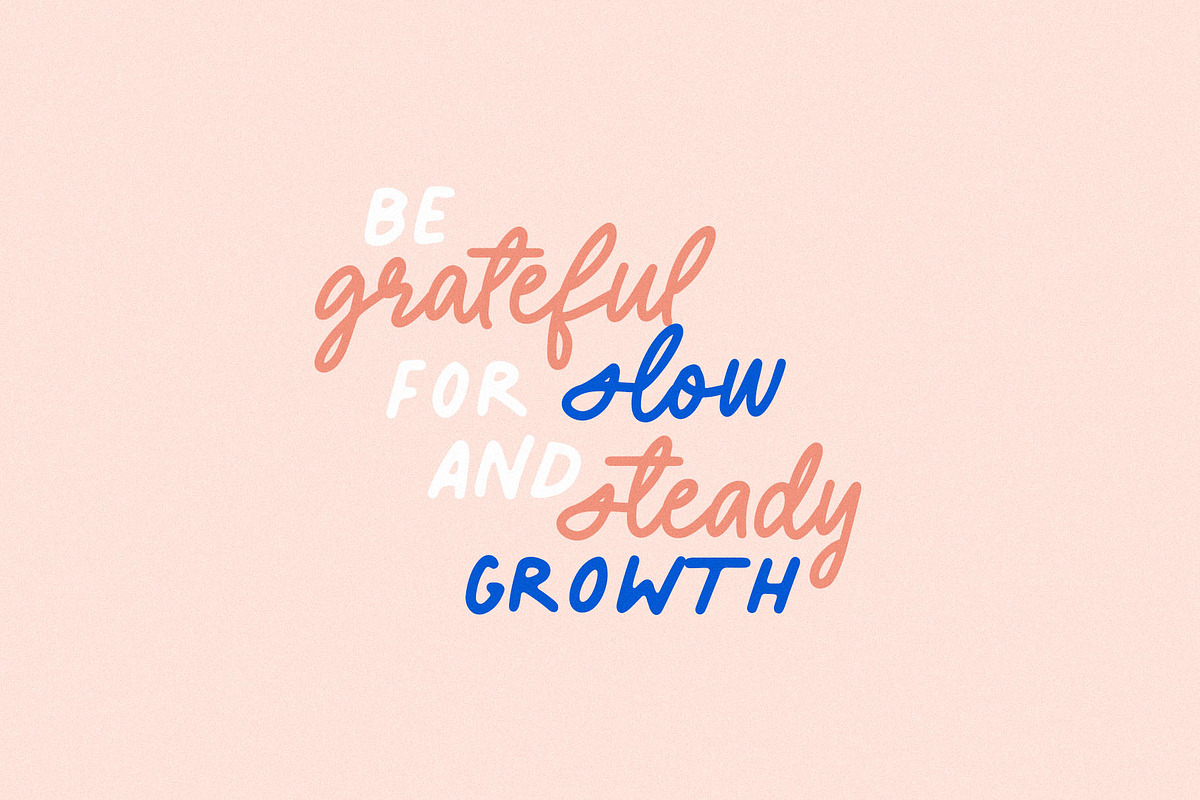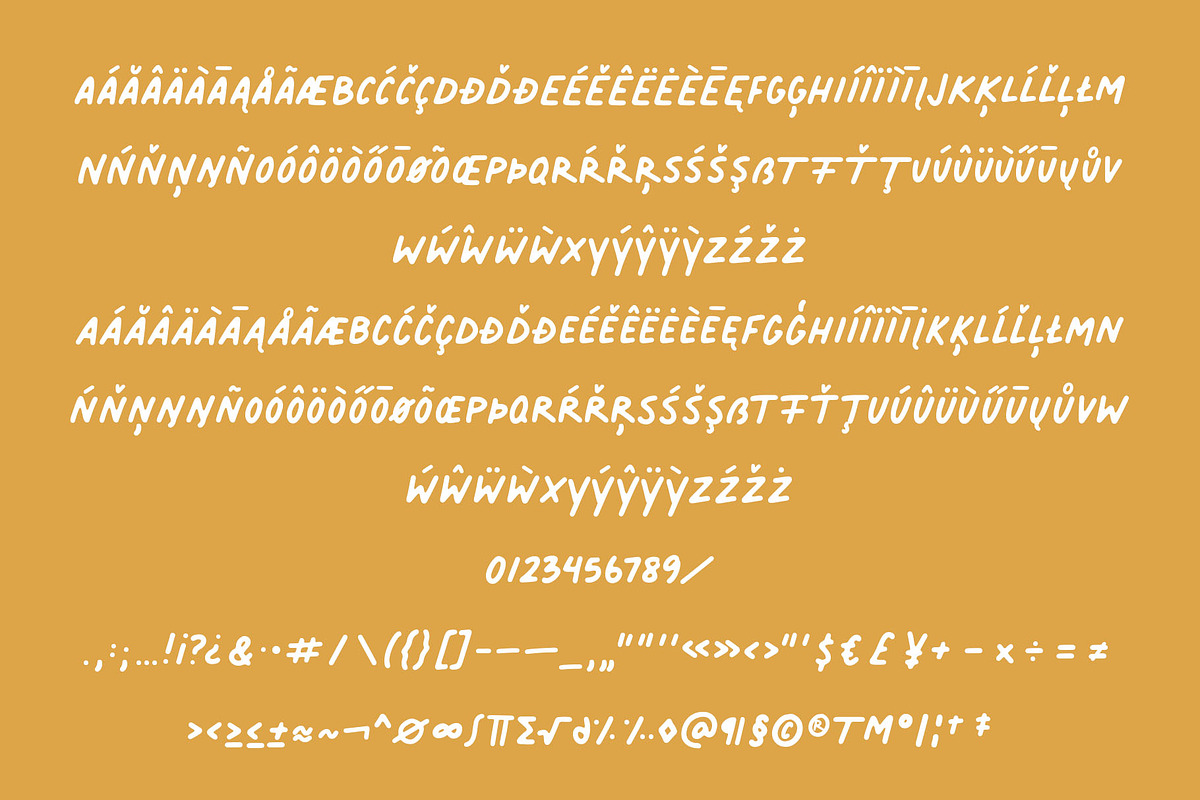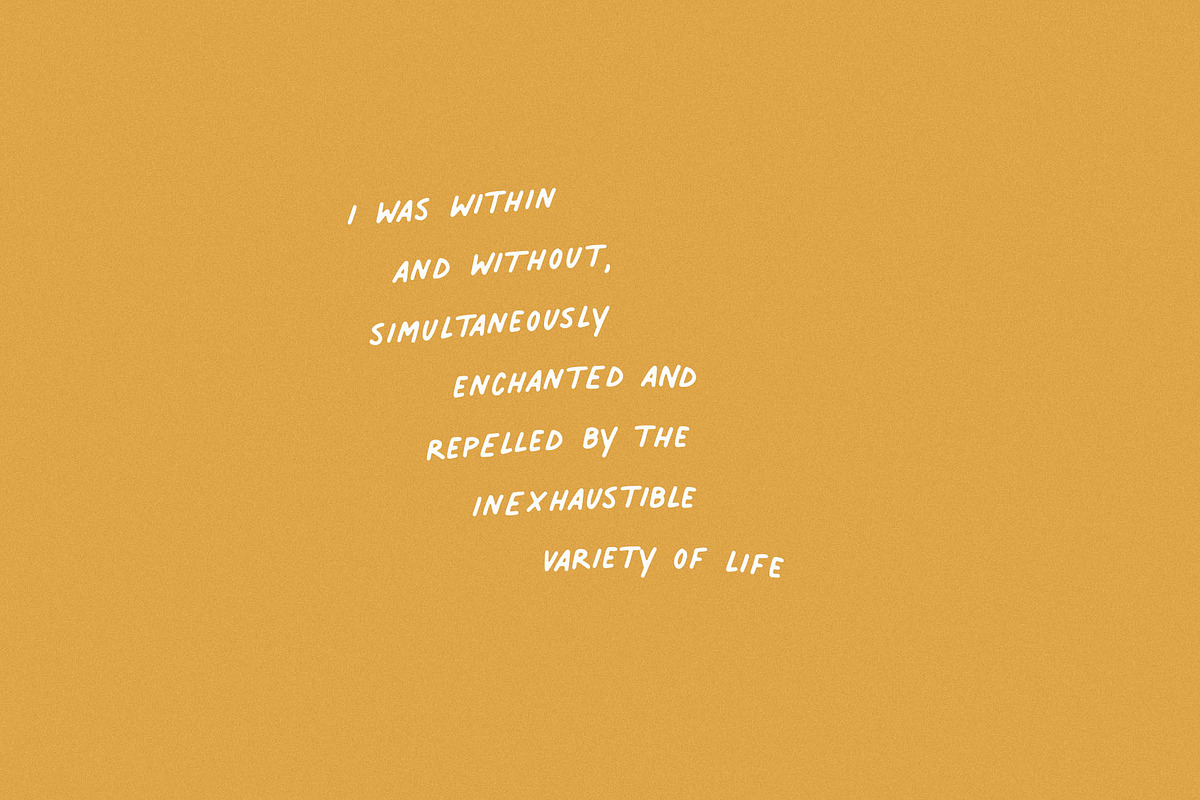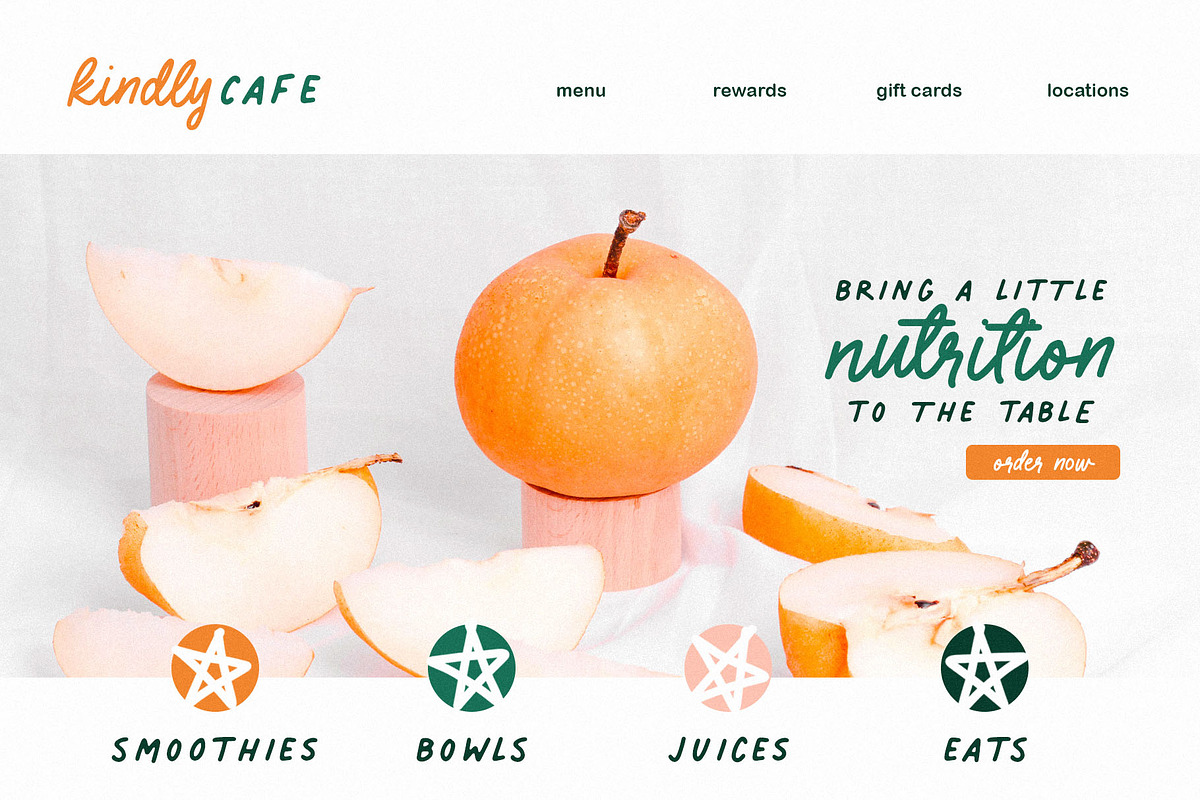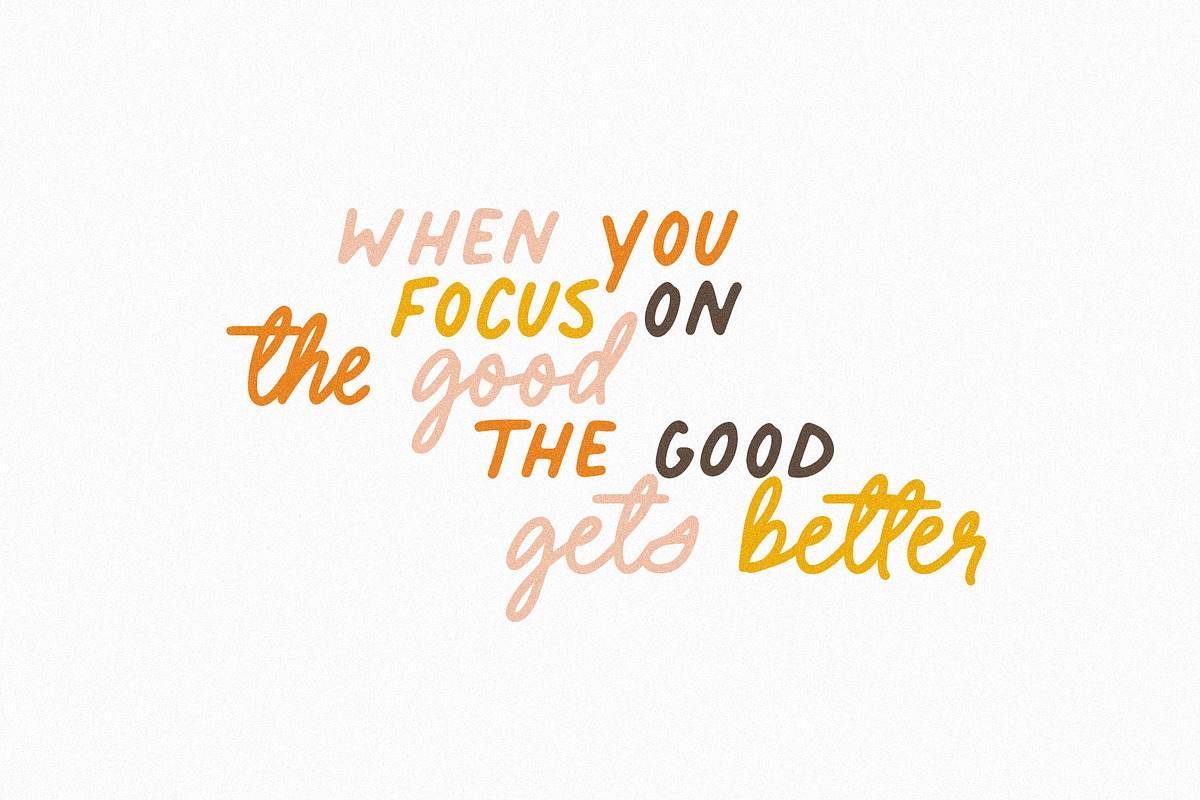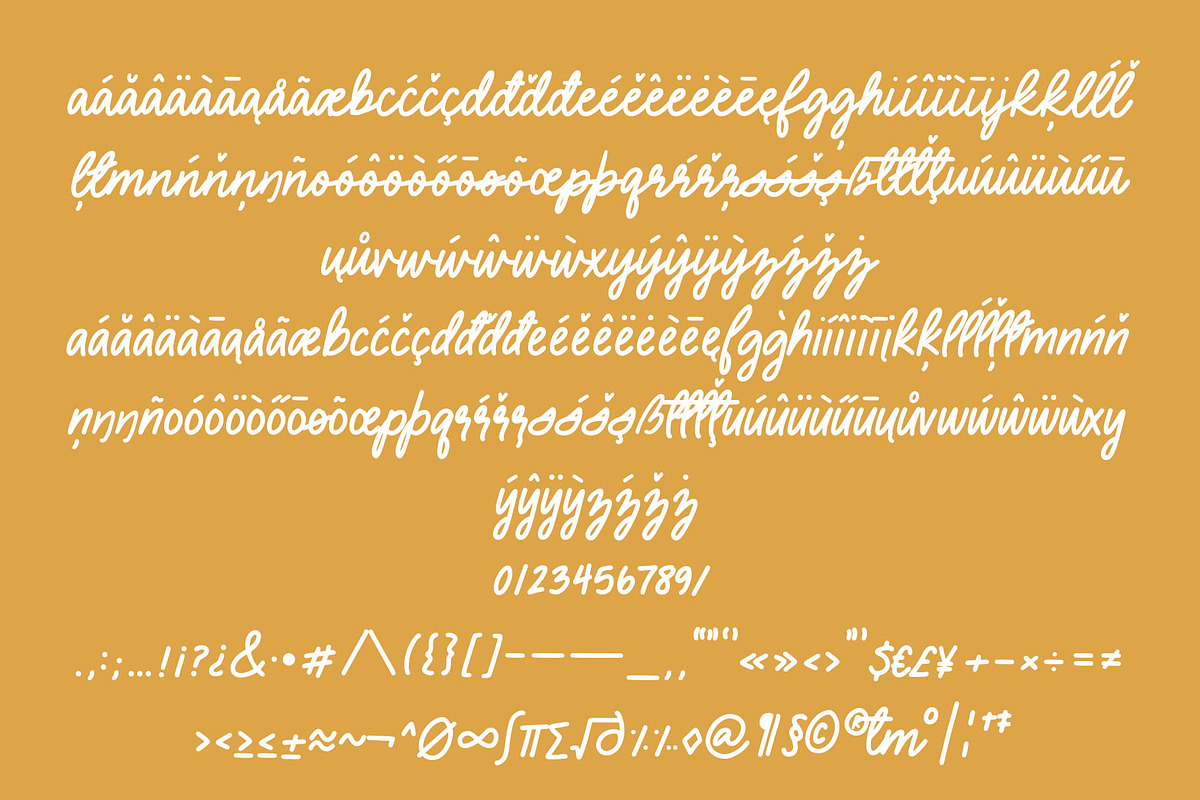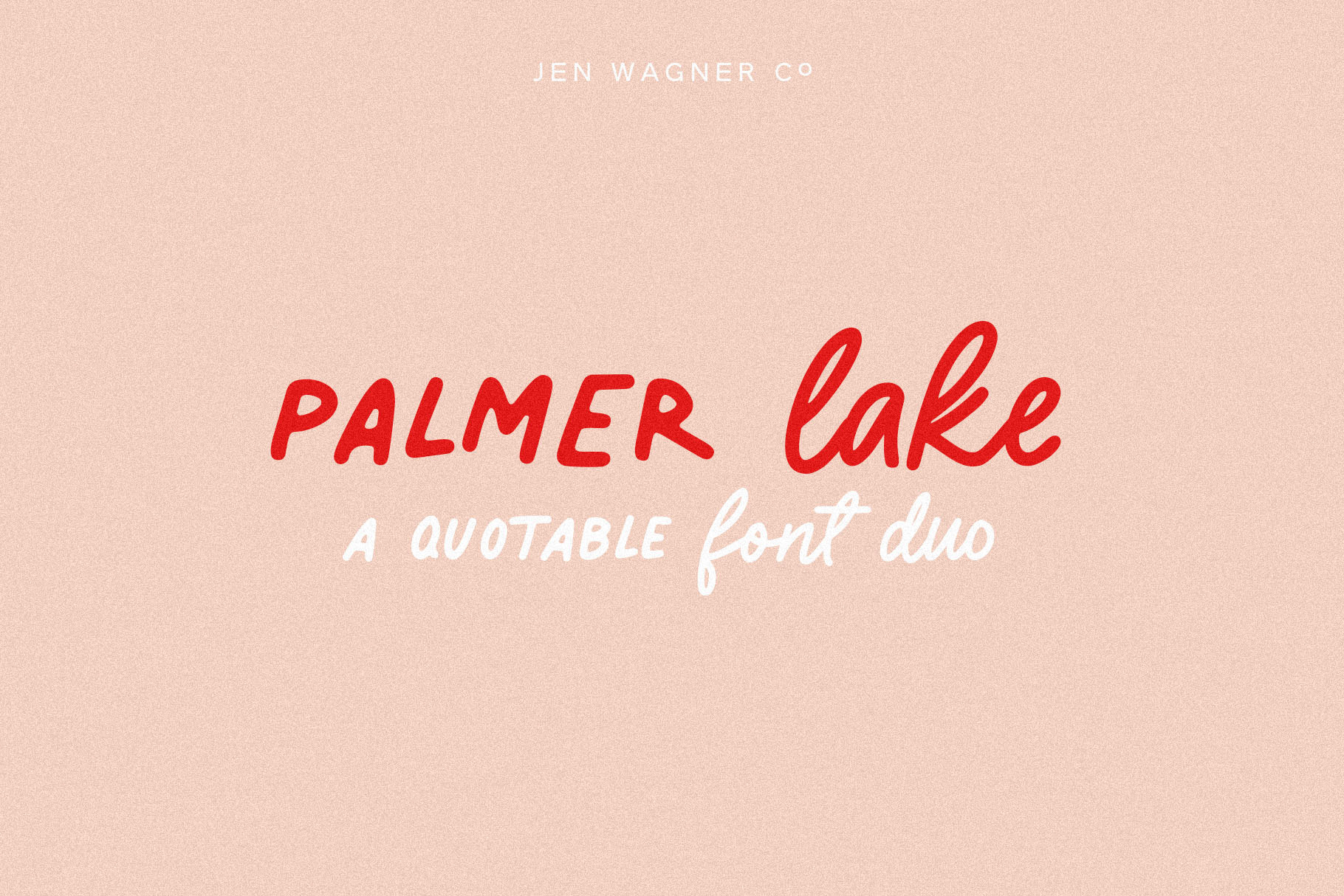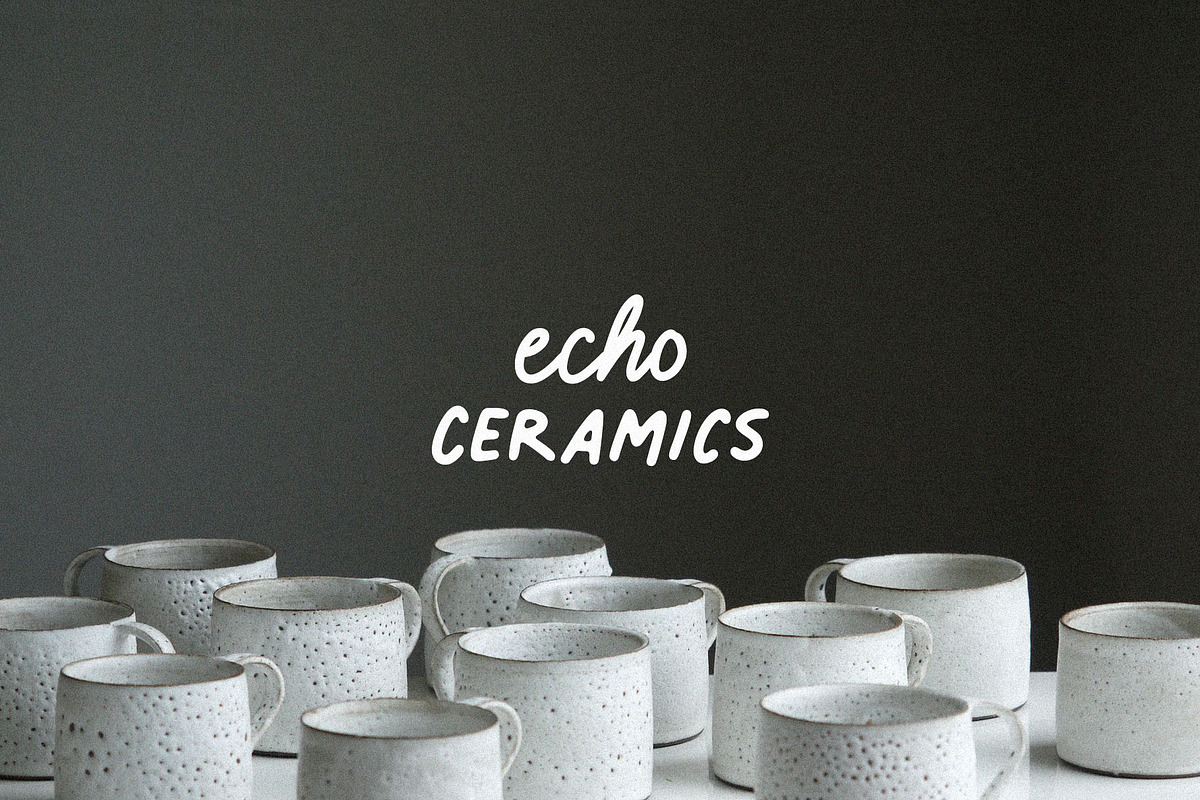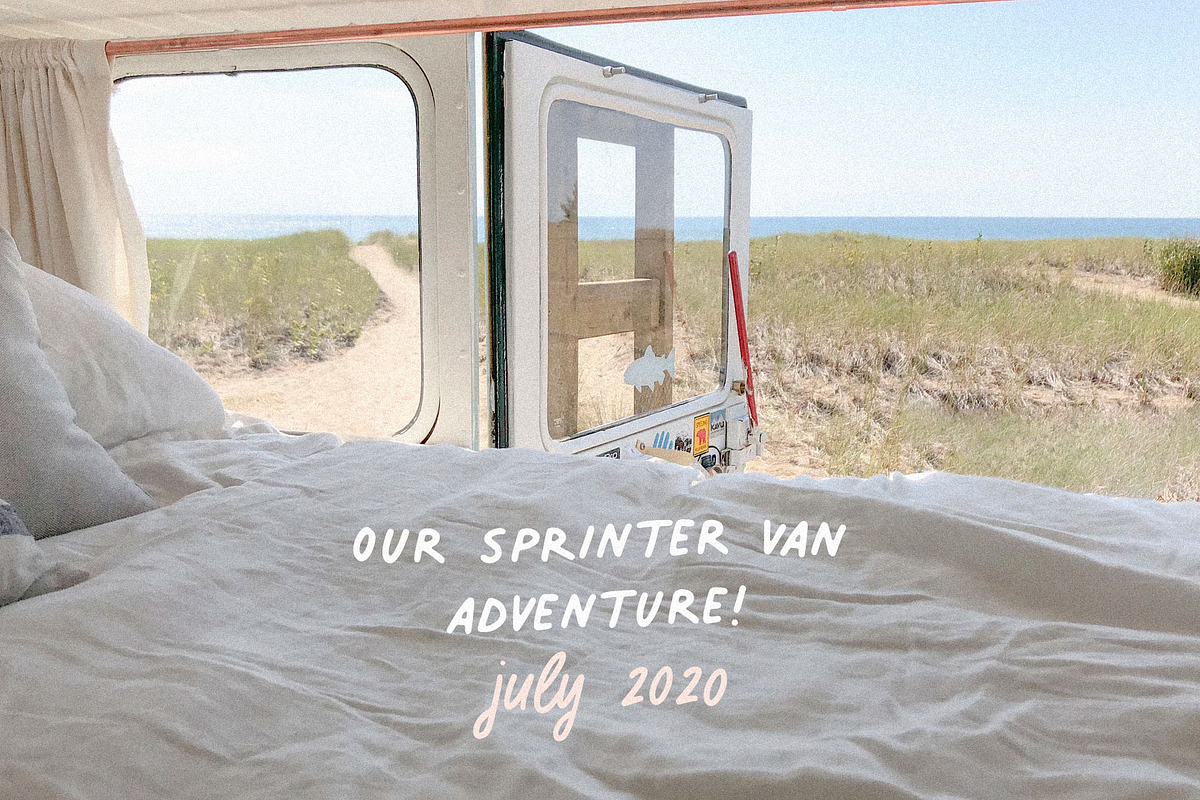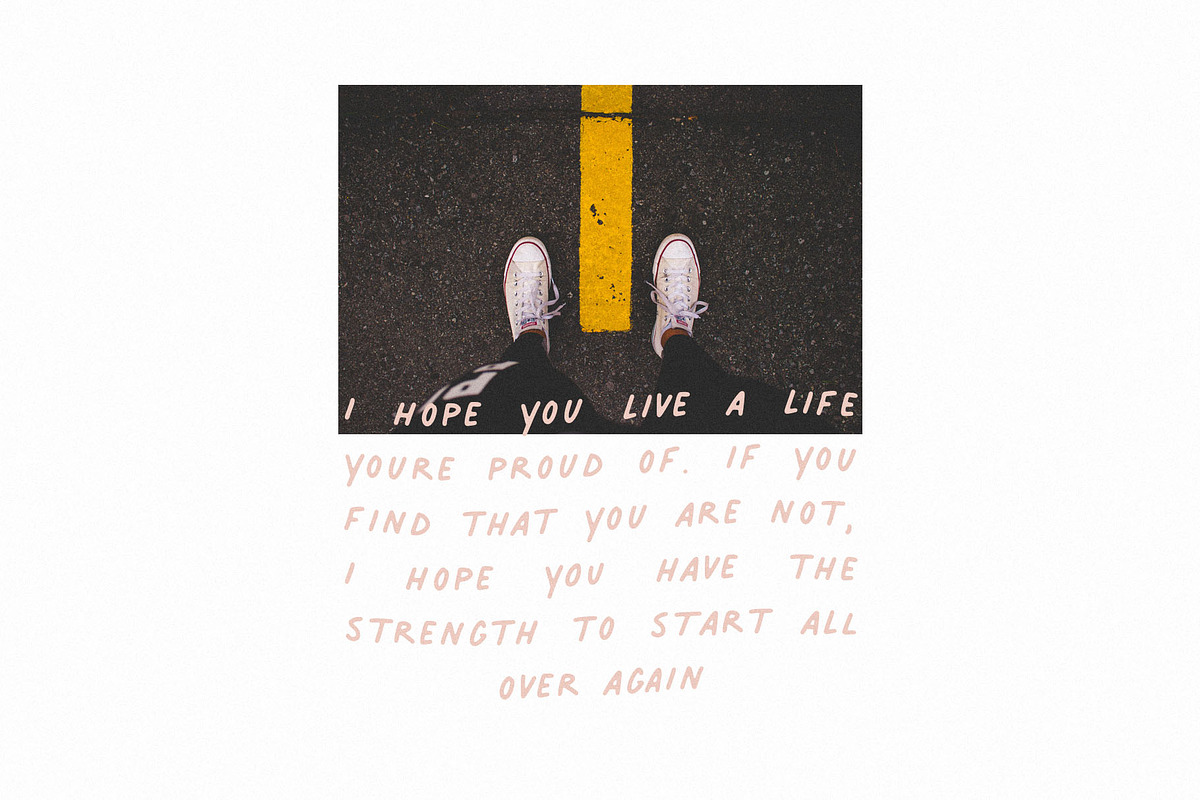
Palmer Lake | A Quotable Font Duo
- Palmer Lake Print: Uppercase letters, numbers, & extended punctuation
- Palmer Lake Script: Lowercase letters, numbers, & extended punctuation
- Non-English support for the international designer
- Same stroke thickness with each font, so you don't need to make any time-consuming adjustments to get it looking right!
- Palmer Lake Print (uppercase font) letters are the same height as the Script lowercase letters, so making quotes is super easy!
This is such a fun new duo, perfect for creating quotes, logos, or just adding a hand-written touch to any project!
While other fonts usually take some size adjusting to look just right, Palmer Lake duo has the same stroke thickness for both fonts, so you can set each font to the same size and you're done!
Plus, the uppercase letters of the Print font are the same height as the lowercase letters of the Script font (see the samples), so lining them up with one another is a breeze!
Each font also has alternates for each letter, so when you type uppercase or lowercase for each font, the letters will change slightly. For example, typing in all caps with the Script font will connect each letter, whereas typing all lowercase will disconnect each letter.